Not All Who Wander Are Lost
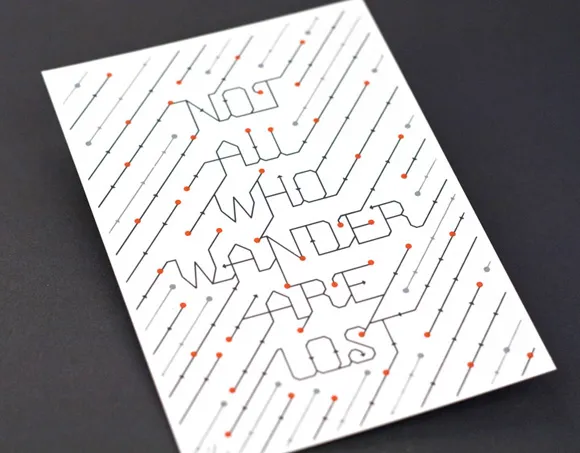
Designer Ross Moody and his 55 Hi’s imprint are one of the reasons we love running our own type foundry. It’s been said that type design is a lonely, difficult and frustrating endeavor and while that can be true, it’s also immensely gratifying when the bi-product of your work is so surprising.
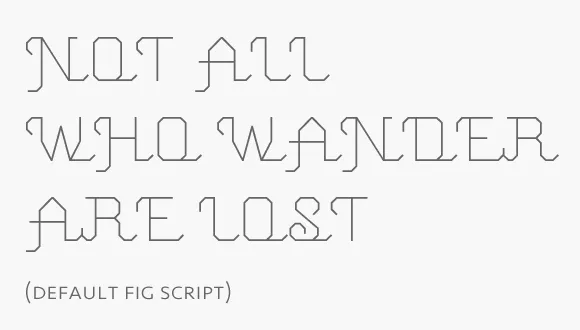
‘Is that our FIG Script?’ we wondered. When set in all caps, a script face doesn’t traditionally connect. So what gives? Capable hands. Ross deftly connected the caps, modified certain letters and added flourishing touches.
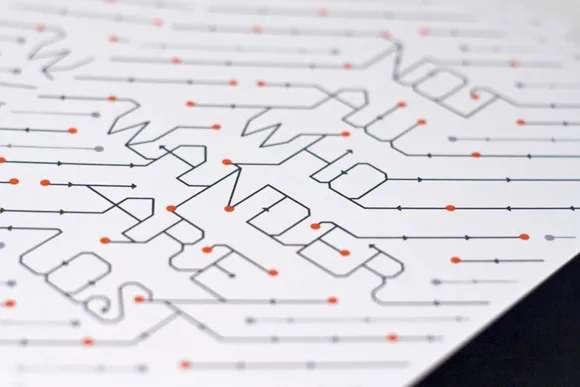
‘Not all who wander are lost’ is a derivative of a line from a J.R.R. Tolkien poem titled, ‘All that is gold does not glitter.’ The poem appeared in the Lord of the Rings trilogy and the original line read, ‘Not all those who wander are lost.’ The poem and its place in the trilogy is documented on Wikipedia.